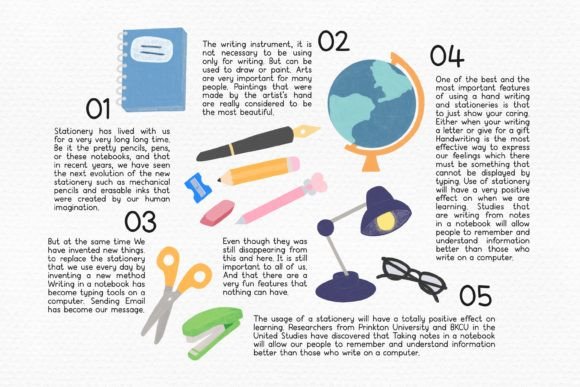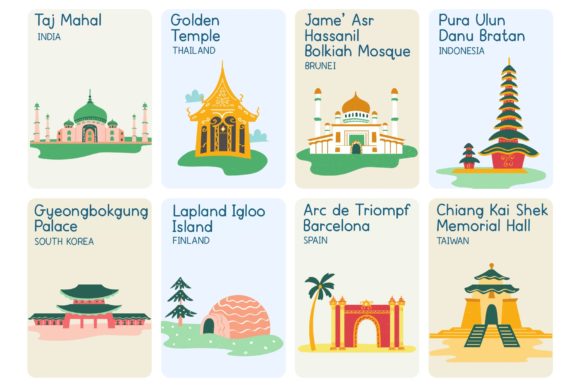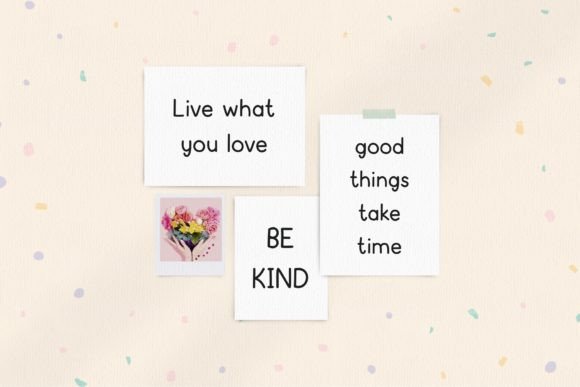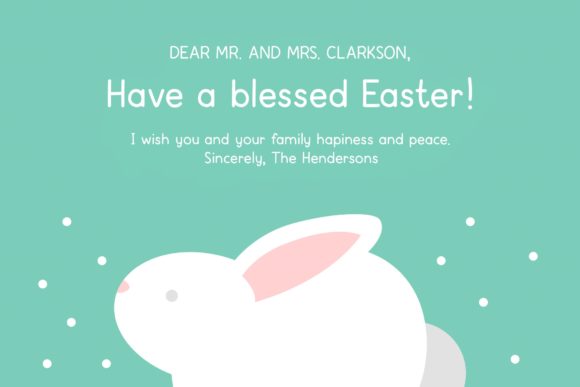
Margie Font
Margie is a neat, simple and cute display font. You can use this font in various projects – blog posts, logos, branding, digital planner, digital bullet journal, invitations, greeting cards, decorations and much more.
The font includes uppercase, lowercase, numbers, punctuation.